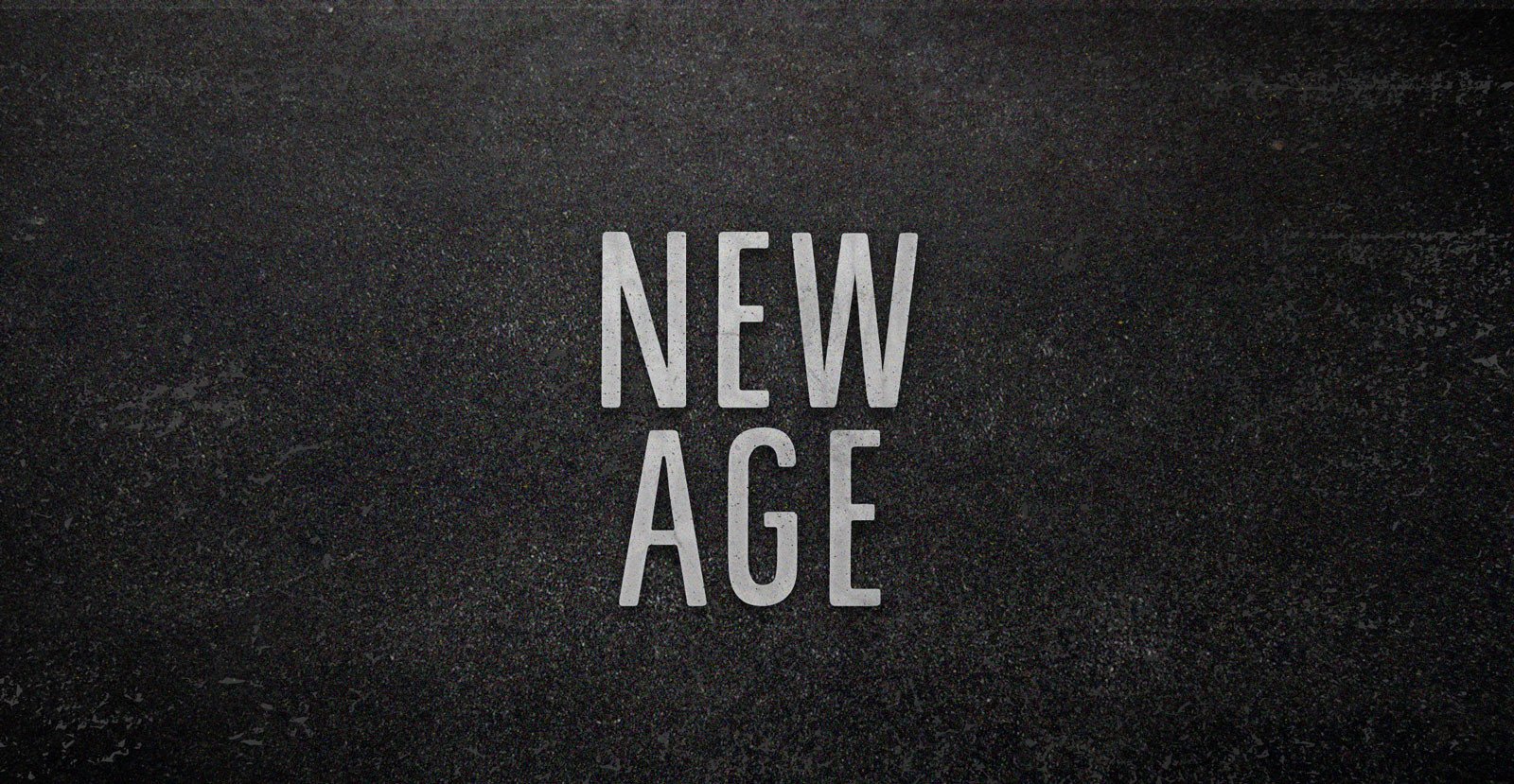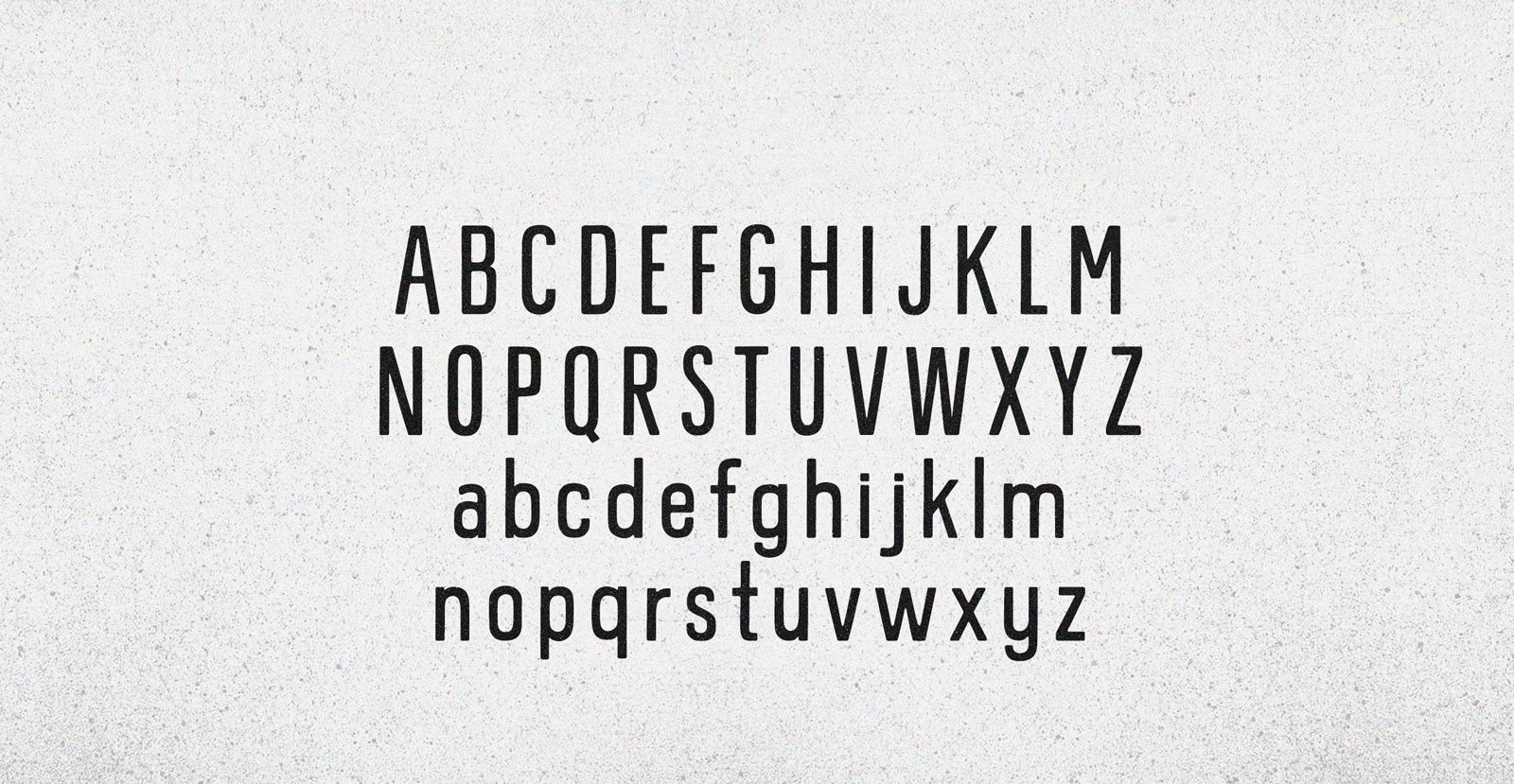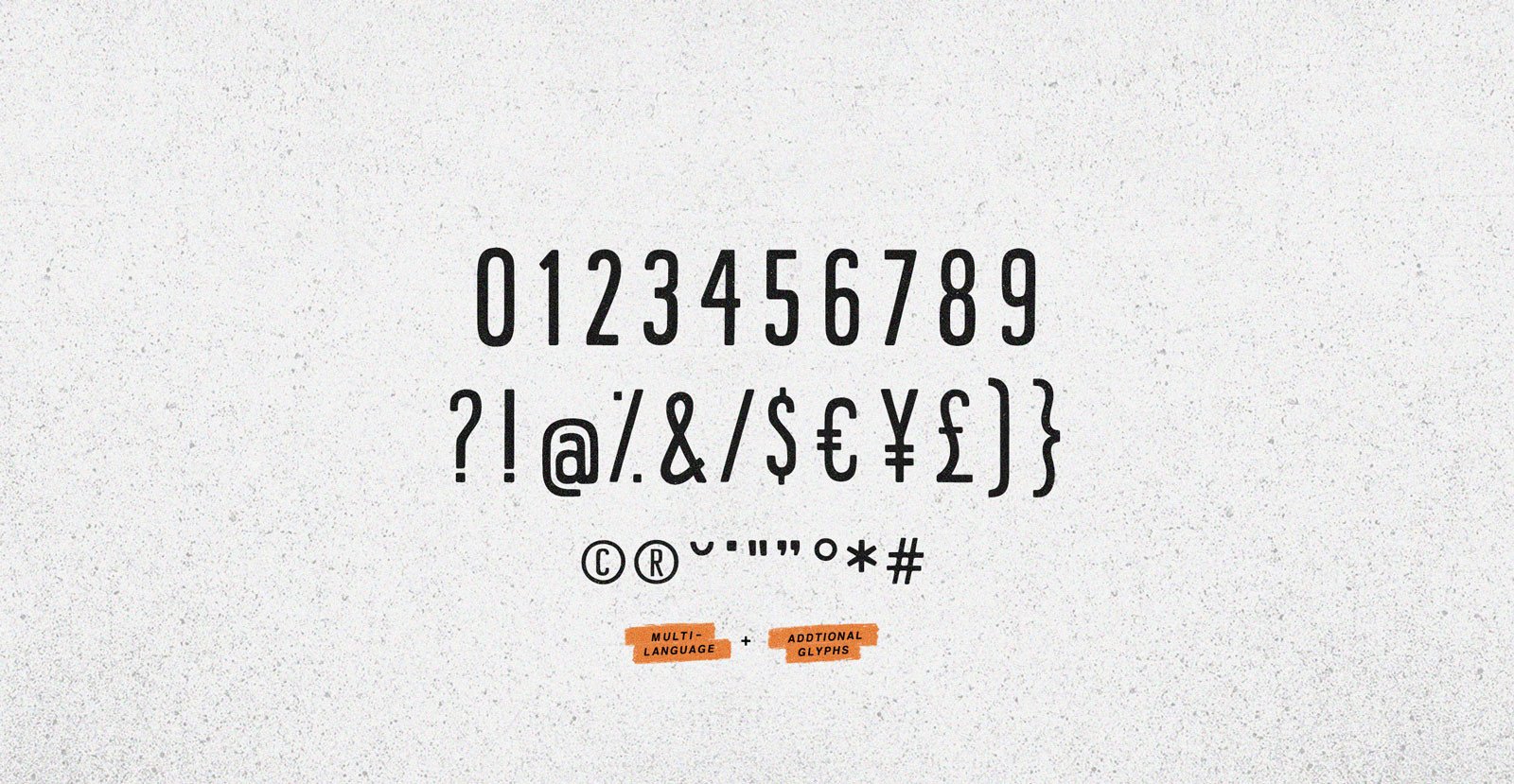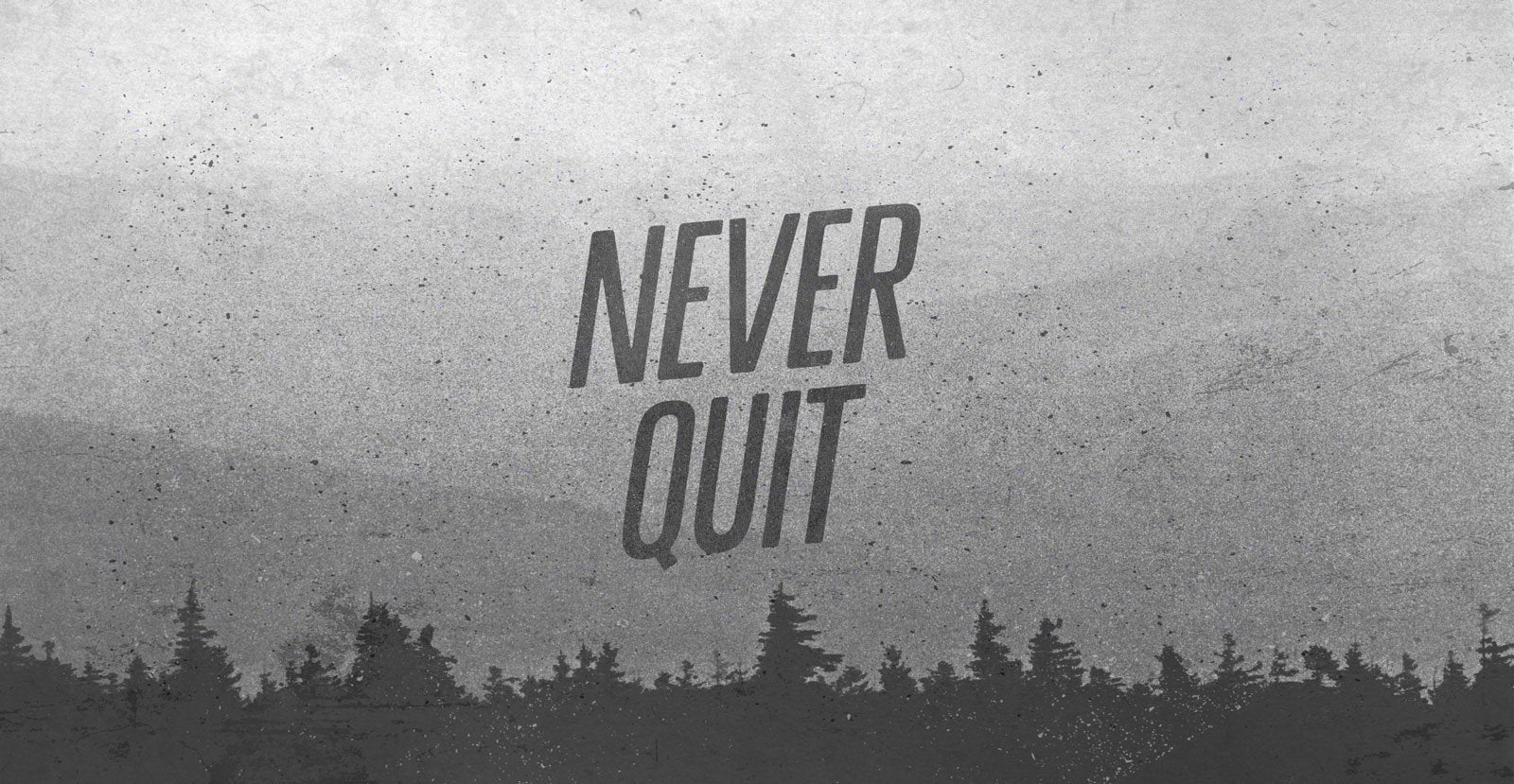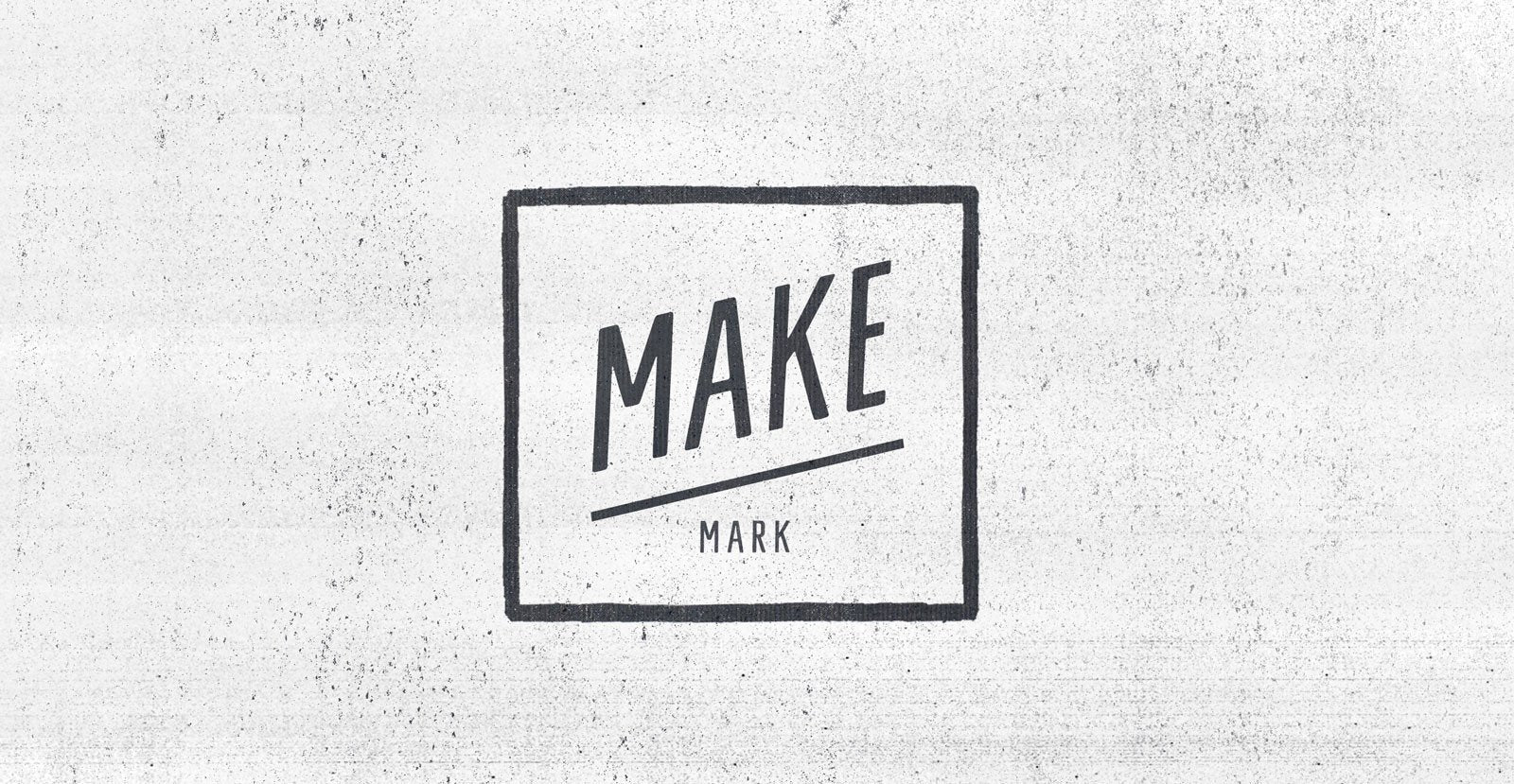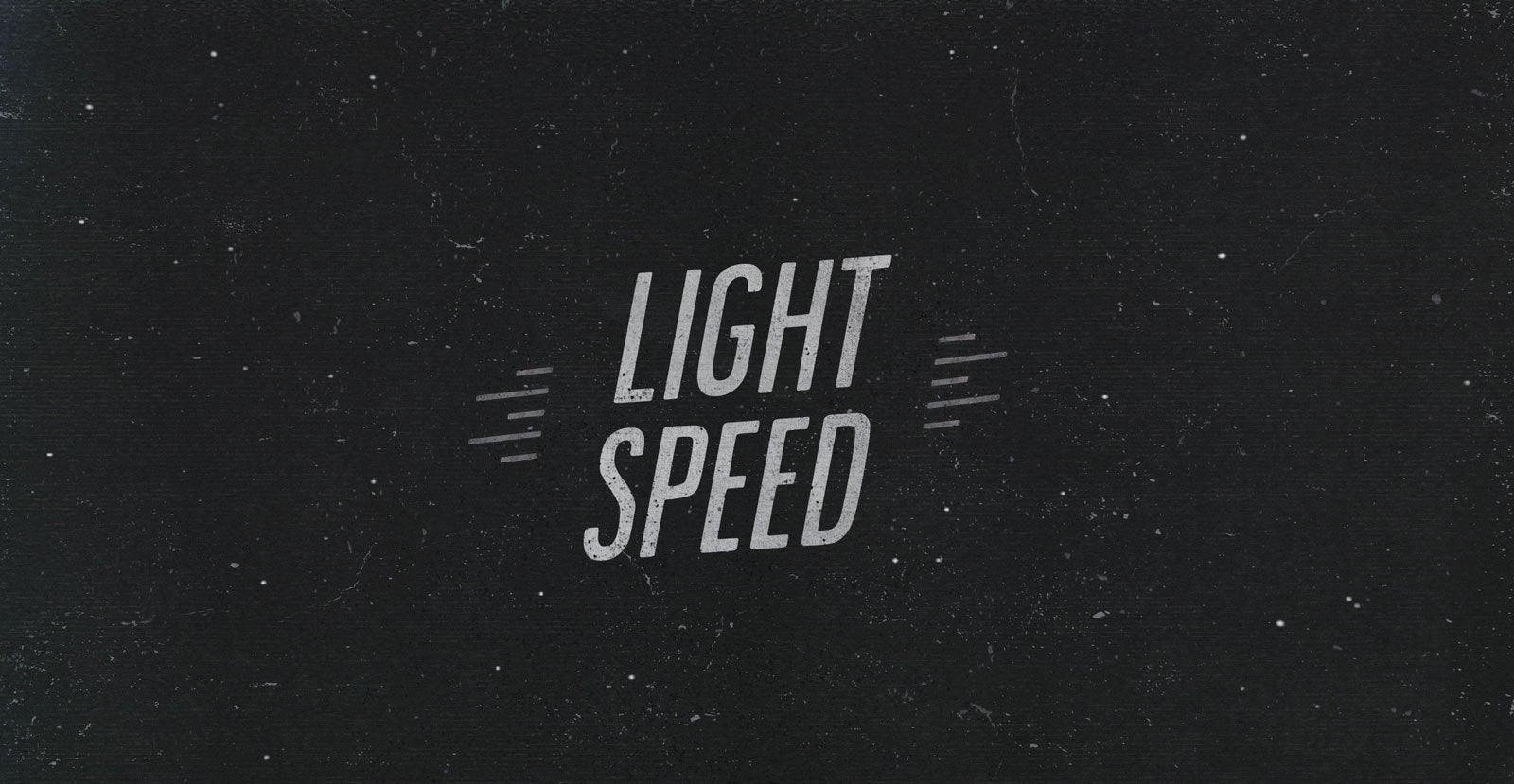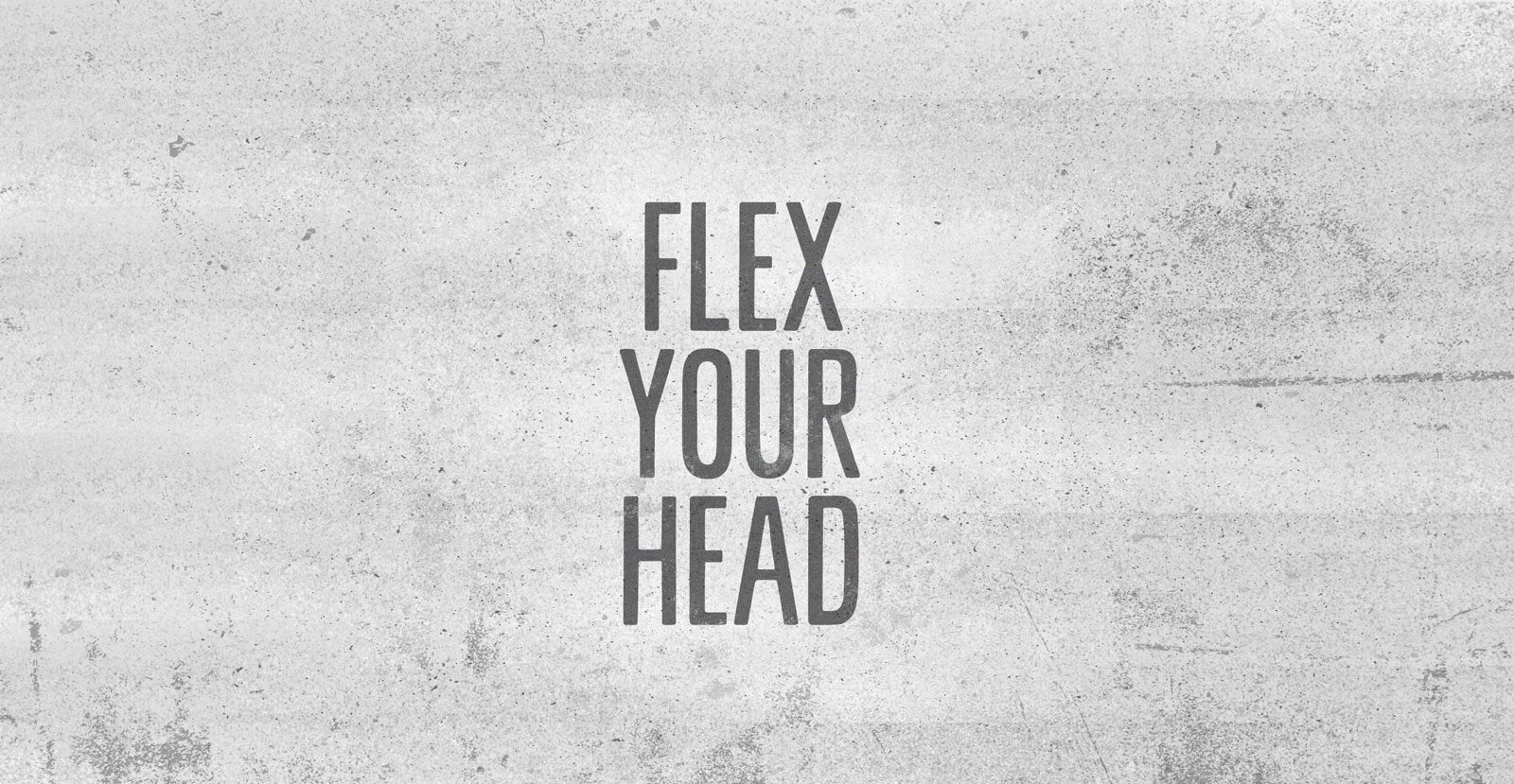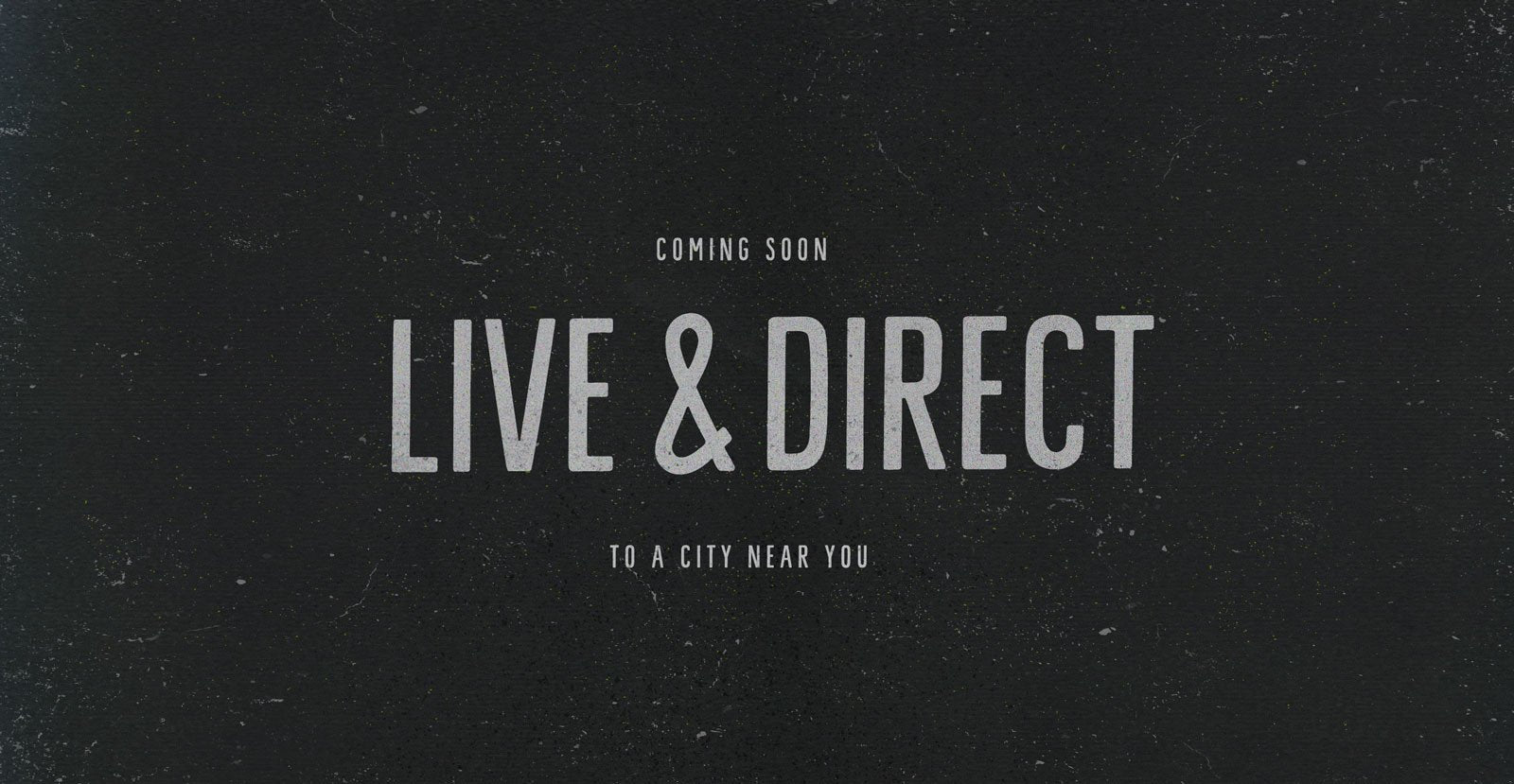
New Age
Handwritten Sans Serif Font
We never tuned into robots. They didn't come to our commune to kill, but to commercialize. We were living in a New Age and it wasn't new enough. As fast as we dropped out of being drones, real drones took our place, cogs in the system, leaving the spirit out of it.